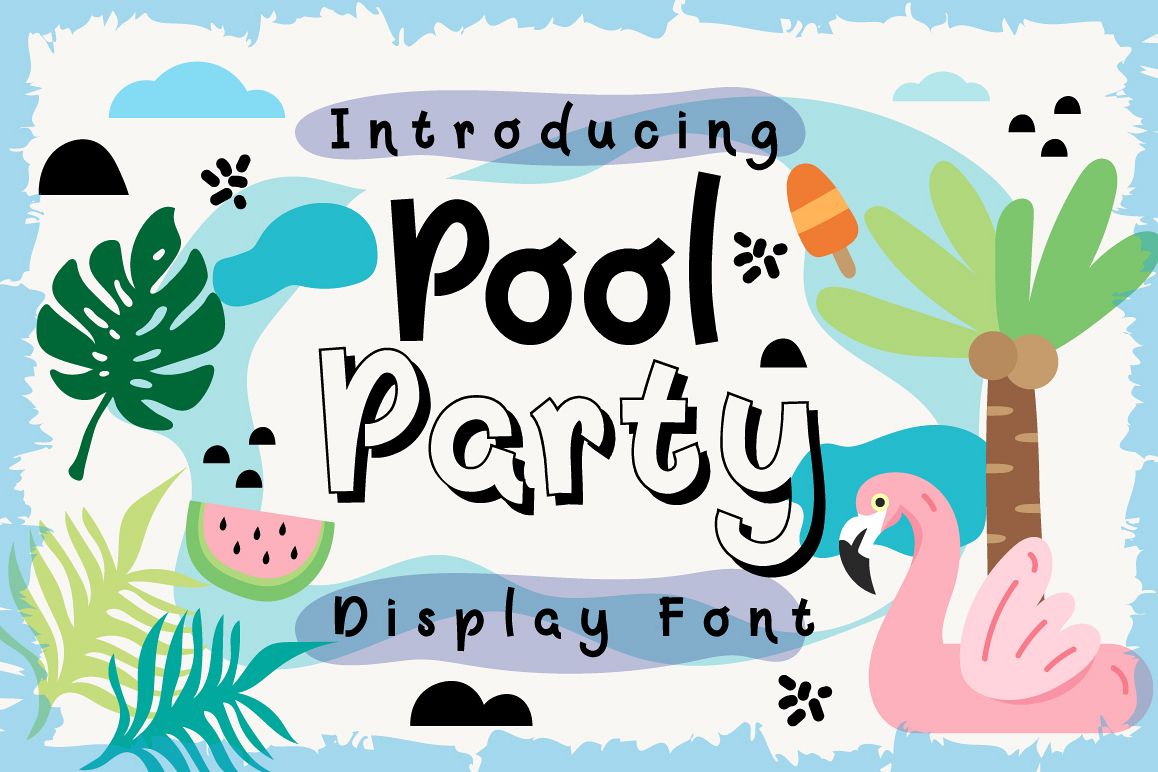
Pool Party
Hi All! Pool Party is a handwritten font with regular and shadow style perfect for title, logo, poster and children books fonts and many more. It also has 20 cute bonus cliparts!